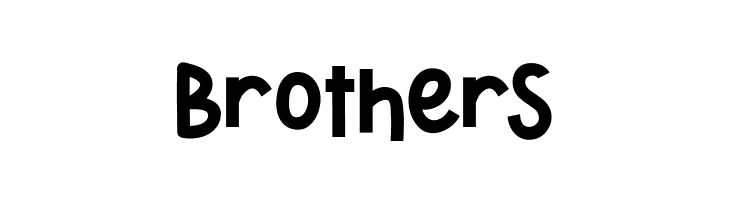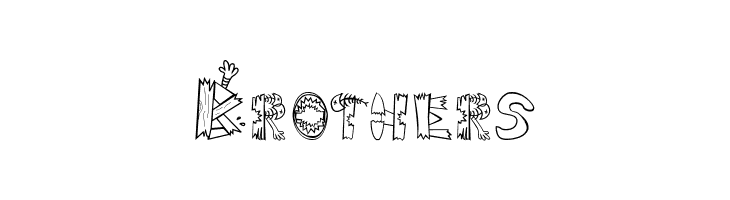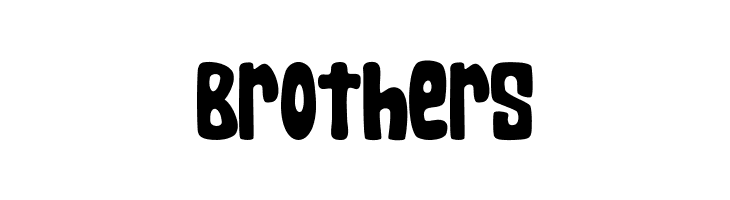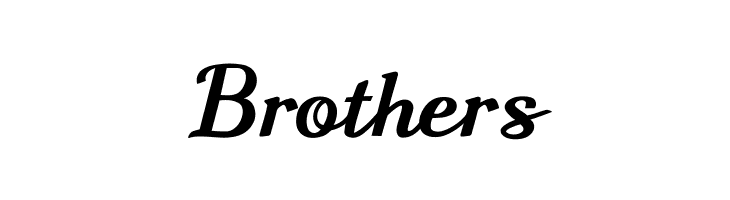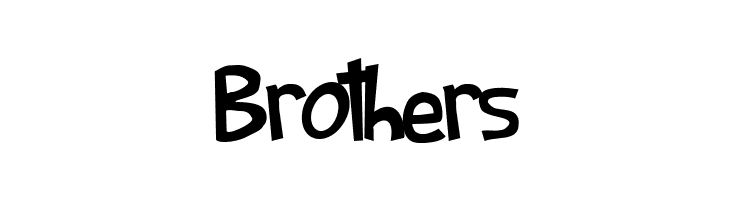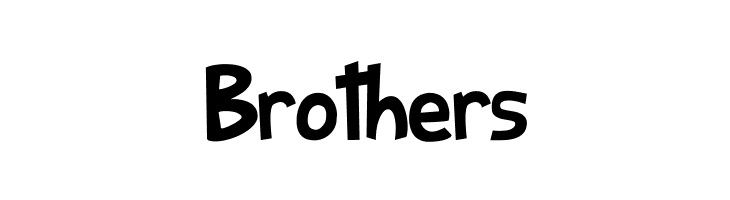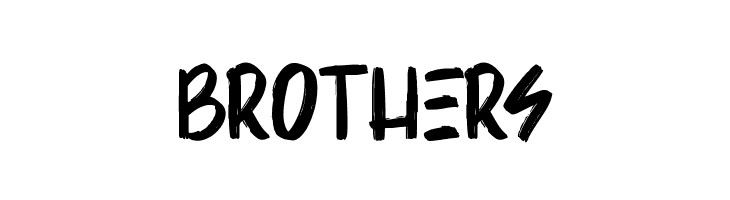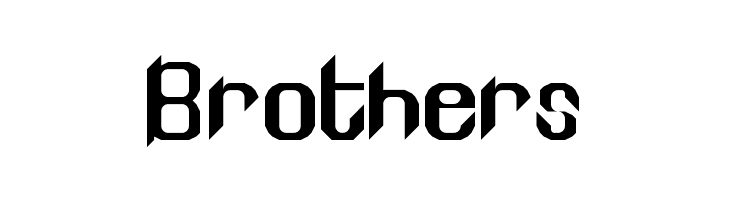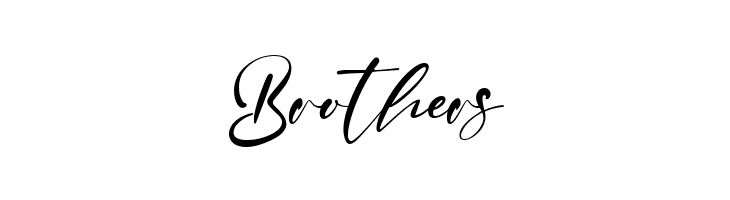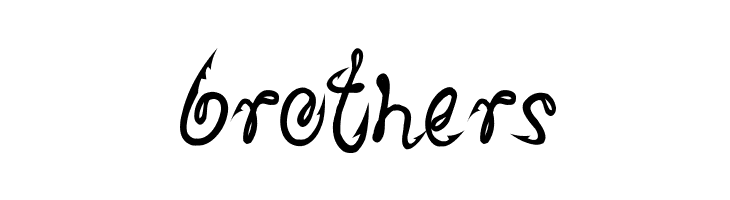
• Shark Attack
A bold, edgy font with sharp, jagged edges and a dynamic, cursive-like style.
• shark fin
• Shark Fins Regular
A bold, geometric font with sharp angles and a modern look.
• Shark in the Water
A playful, casual handwritten font with flowing, organic letterforms.
• Shark in the Water Bold
A bold, playful handwritten font with a casual and lively style.
• Shark Random Funnyness
A playful, hand-drawn font with quirky, irregular letterforms.
• Shark Random Funnyness 2
A playful, cartoon-like font with bold, exaggerated letterforms.
• Shark Week Regular
• Sharkartoon Regular
A bold, cartoonish font with playful and exaggerated curves.
• SharKbait Regular
• Sharkbit demo
A playful, bold font with thick, rounded characters and a hand-drawn feel.
• Sharkey
A fluid and elegant script font with medium contrast and graceful curves.
• Sharkey
A dynamic and elegant script font with fluid, cursive letterforms.
• SharkFighter-Regular
A bold, dynamic font with sharp, angular edges and a fierce, energetic style.
• Sharkines Demo
A bold, playful font with rounded edges and a whimsical style.
• Sharking
A bold, slanted font with a textured, dynamic style.
• Sharkscribble
• Sharkyspot